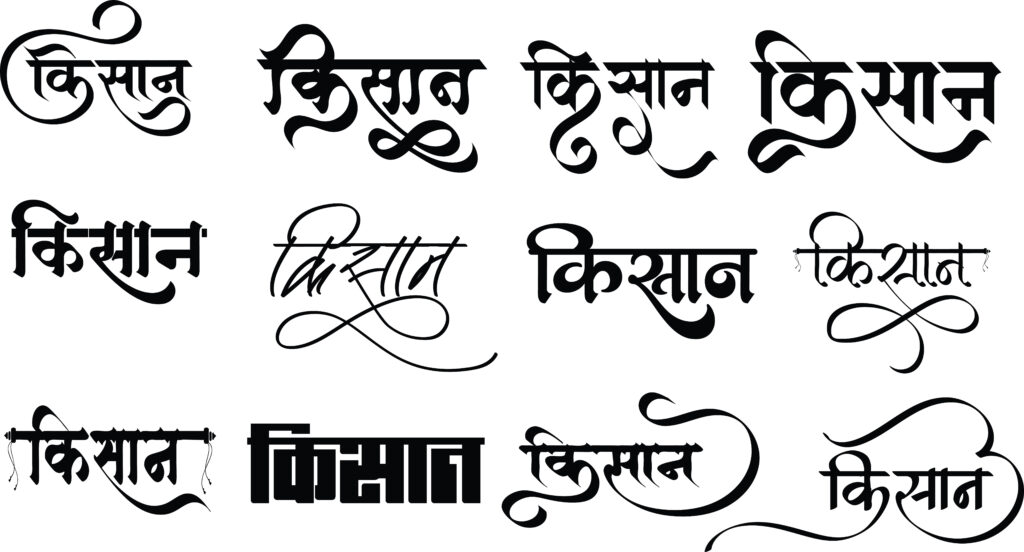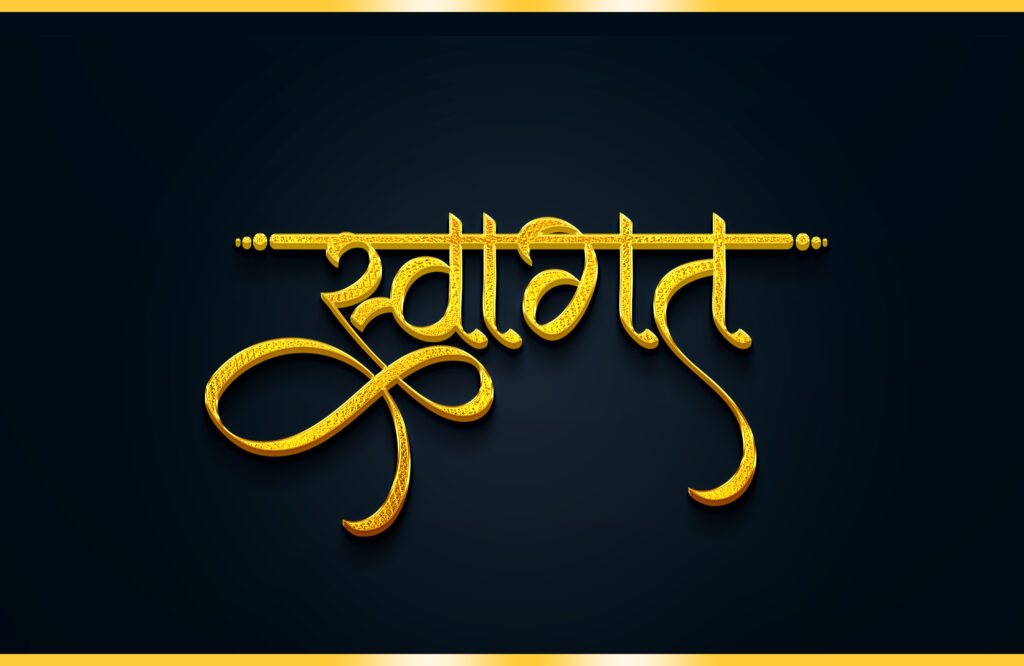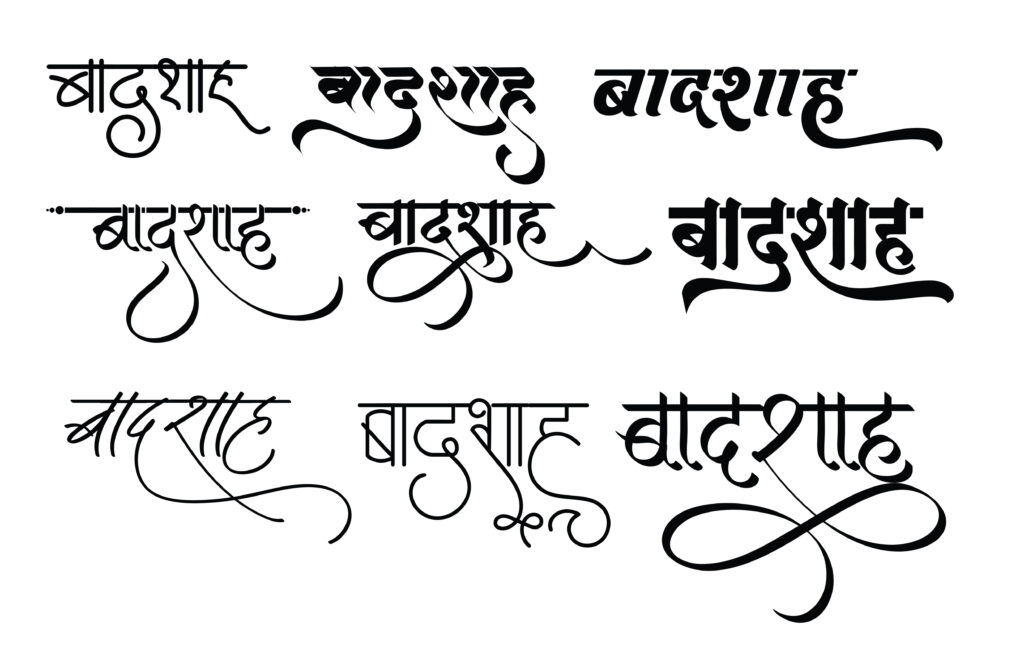
Hindi Font Download. If you want to create powerful Indian branding, a Hindi font with beautiful Hindi calligraphy makes a big impact. Today Hindi calligraphy is not only used in books or posters. Many brands, YouTubers, wedding planners, artists, and businesses need unique Hindi calligraphy fonts, Hindi logo designs, Indian logo designs, and creative Indian calligraphy for professional identity. I am a Hindi calligraphy designer and I create custom Hindi font style, Hindi logo, and Indian calligraphy designs for creative projects.
Why Hindi Calligraphy is Important for Branding
Hindi calligraphy gives a cultural identity. Your audience connects emotionally with Hindi font style because it represents Indian tradition, culture, and storytelling. A unique Hindi calligraphy font or Indian logo creates trust for your brand and helps you stand out from the competition.
Benefits of a Professional Hindi Calligraphy Font
• Makes your brand look premium
• Works perfectly for Indian audience
• Best for logos, posters, packaging, and social media
• Helps your content rank and perform better in India
• Easy to read and eye catching
When you use a normal Hindi font, your design looks common. A custom Hindi calligraphy design brings originality and brand value.
Where Hindi Font Style is Mostly Used
• Logo design for Indian brands
• Movie and song titles
• Packaging design for Indian food products
• Social media and YouTube thumbnails
• Wedding cards and invitation design
• Newspapers and magazines
• Book covers and t-shirts
Custom Hindi calligraphy fonts help designers and businesses create visually strong and culturally connected branding.
You deserve a design that matches your vision. Build your Indian identity with creative typography today.
Badshah Name Logo in Unique Hindi Calligraphy
Hindi Calligraphy Logo for Badshah – Modern Indian Symbol and Translation Art
Badshah logo, Badshah name logo in hindi calligraphy, Hindi symbols, Indian logo, Translation – Badshah
Badshah in Hindi calligraphy creates a strong impression for Indian logo design projects looking for tradition blended with style. When you see a Badshah logo crafted in Hindi calligraphy fonts, it symbolizes a rich blend of heritage and artistic flair—a quality valued in Indian calligraphy and premium Indian font styling. These Hindi calligraphy fonts capture the royal essence and are popular among designers and creators. If you’re looking for inspiration or ready files, plenty of Hindi calligraphy fonts free download options are available online. These resources allow anyone to experiment with Hindi calligraphy font styles and give your Indian logo an elevated look.
Kisan Logo | Modern Indian Logo Inspiration
The Kisan logo crafted in Hindi calligraphy is a strong symbol for farmer identity and Indian branding. Innovative use of Hindi calligraphy fonts brings a sense of tradition and artistry to every Kisan logo. Anyone searching for Hindi calligraphy font styles or Hindi calligraphy fonts free download will discover a diverse collection to express creativity in logo design. Free Hindi font download services make it easier than ever to experiment with unique Hindi font styles, including popular options like Hindi font kruti dev for that authentic Indian touch.
Swagat logo, Hindi Welcome logo, Indian Welcome monogram, Swagat 3d golden metallic emblem in hindi calligraphy font, Translaiton – Swagat – Welcome